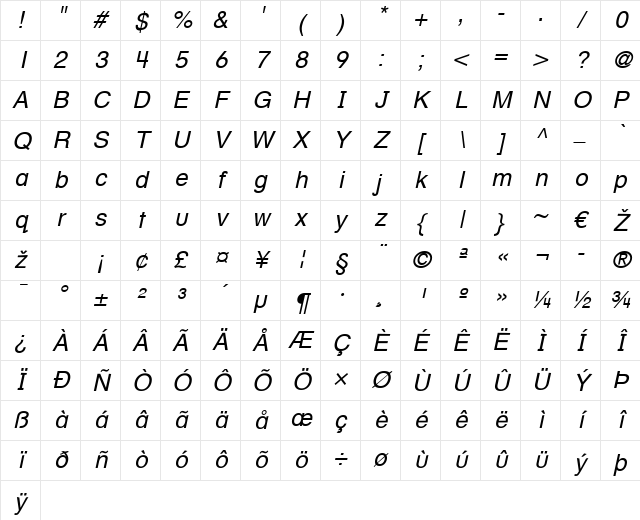
HelveticaTextbook LT Roman Italic
Design Context for HelveticaTextbook LT Roman
HelveticaTextbook LT Roman is a composed and adaptable typeface that performs quietly and consistently across a wide range of design contexts. The slanted form adds forward momentum and visual energy. Its slender proportions lend an understated elegance to any composition.